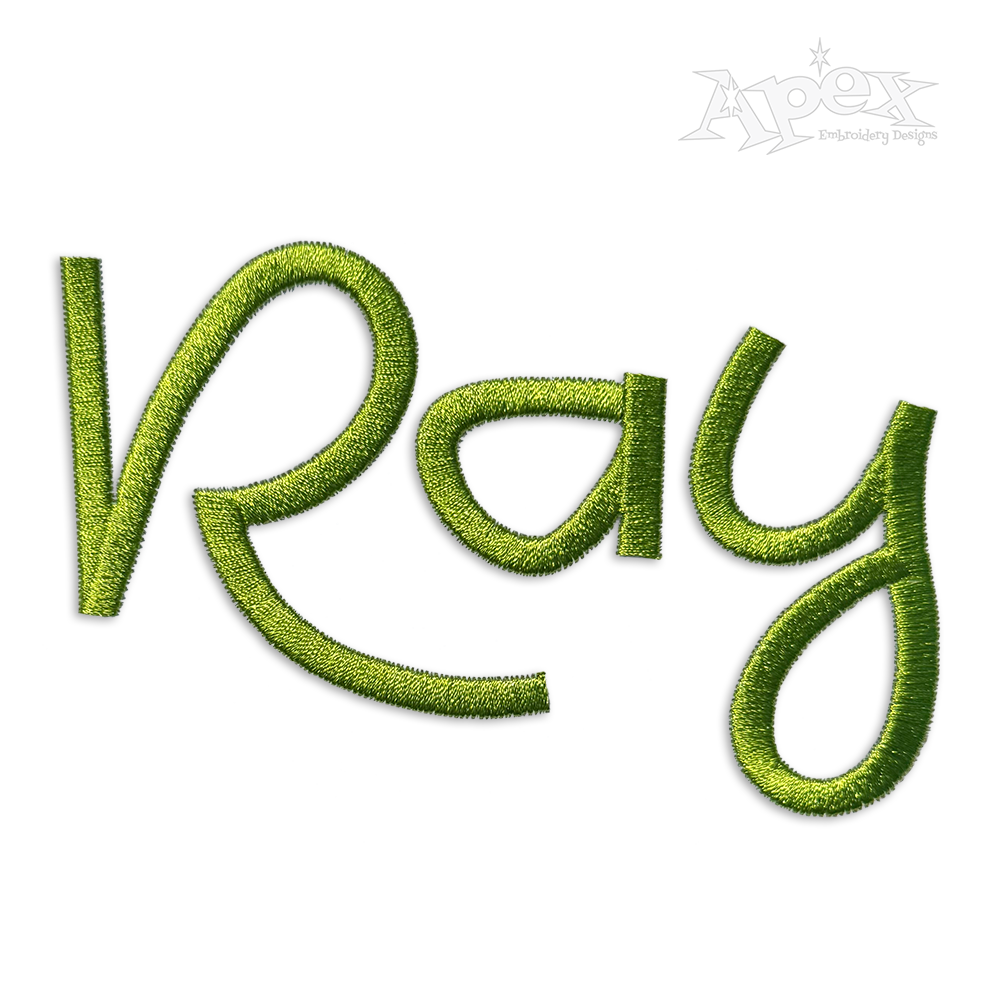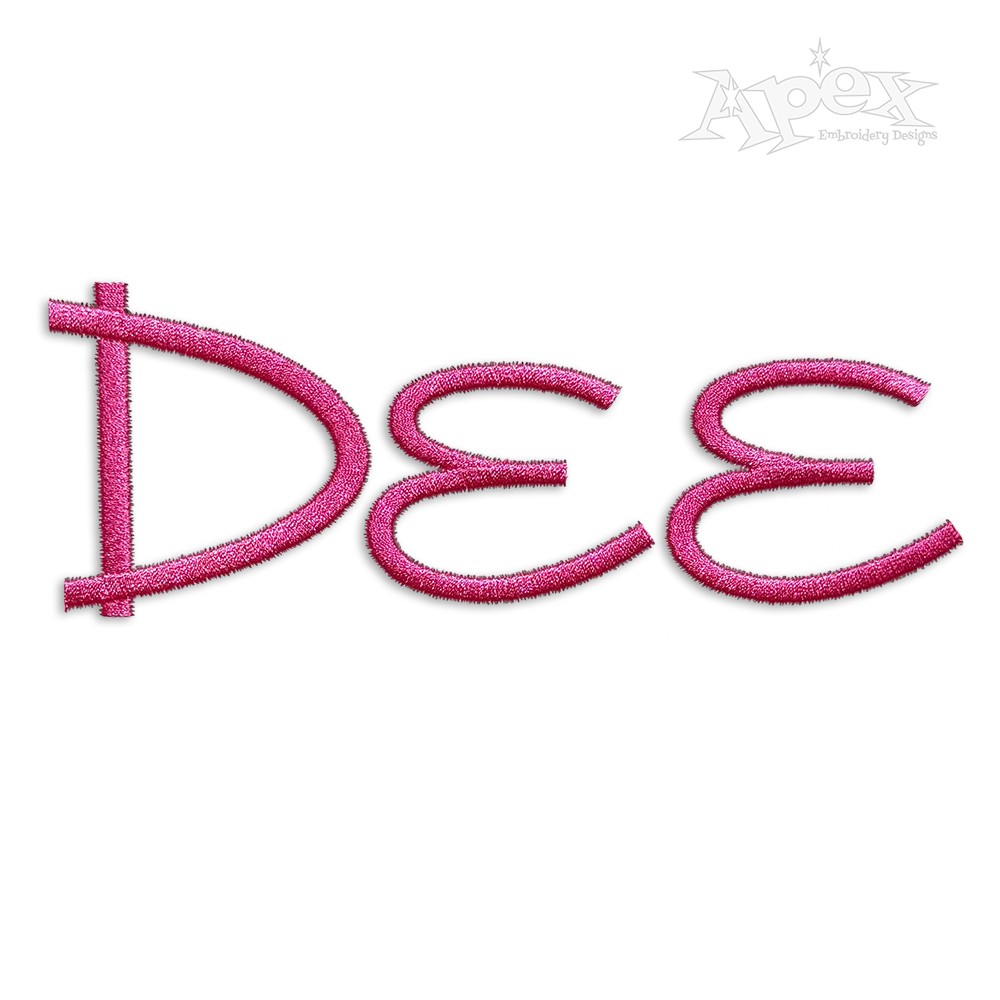
Loopy Embroidery Font
Bent wire sculpture sparks thread motion. Loopy Embroidery Font captures lighthearted elegance with continuous curving paths. Digitized satin columns flow without abrupt stops, mimic unbroken cursive thread trail. Design brings lively warmth, tactile kinetic charm to custom monogramming projects.
Complete satin stitch collection includes:
- Uppercase Alphabet: Full A–Z glyph set.
- Lowercase Alphabet: Full a–z glyph set.
- Numerals: Numbers 0–9 for milestone dates, commemorative markers.
Project Ideas for Loopy
Airy loops adapt effortlessly across distinct textiles:
- Luxury Table Linens: Monogram linen cocktail napkins for garden parties, alfresco dinners.
- Bespoke Resort Wear: Stitch sunny initials onto linen cabana shirts, sun hats, poolside cover-ups.
- Heirloom Embroidery: Embellish heirloom bedding, pillowcases, duvet borders with gentle personalized script.
- Personalized Gifting: Accent canvas totes, knit baby blankets, bridal robes with playful elegance.
Precise letter spacing ensures versatile positioning:
- Corner Diagonal: Angle 2-inch initials 1.5 inches from corner tip on dinner napkins, pocket squares.
- Center Chest: Run full names using 1-inch lowercase glyphs across children sweaters, casual tees.
- Cuff & Hemline: Place single 1-inch monogram parallel to cuff edge on button-down shirts, robe hems.
- Border Runs: Repeat 3-inch uppercase letterforms along quilt trims, runner borders for bold decorative statement.
Loopy Craft & Letterform Details
Playful wire art inspired letterform geometry. Each glyph features narrow satin stitch alphabet construction, balanced density, exact pull compensation. Digitizer mapped entry points and exits to minimize trim commands, prevent tension distortion on delicate fabrics. Gentle loops maintain structural integrity across light batiste or dense twill. Curves catch ambient light evenly, create raised tactile luxury without bulk.